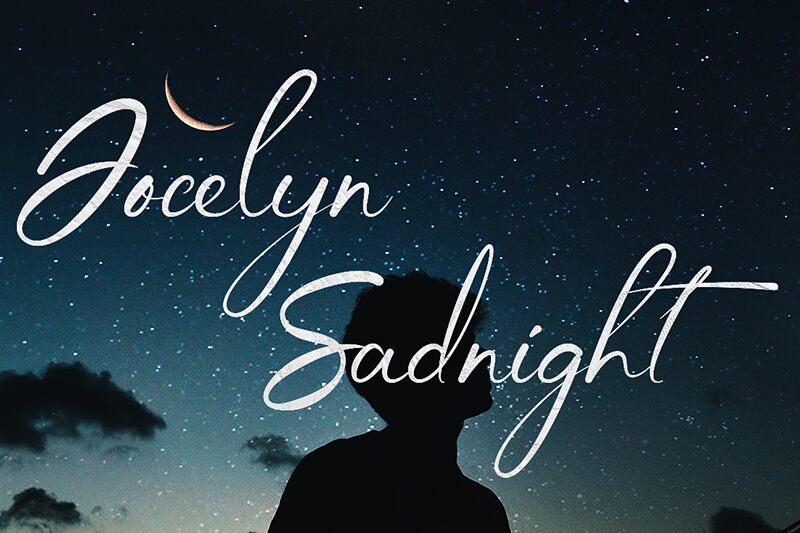
Jocelyn Sadnight font designed by Alvin Hidayat is a free handwritten font with a charming script appeal. It features an elegant and sophisticated design that feels fluid and romantic almost as if it was written by hand using a pen. The artistic flair that characterizes the font emanates modernity and it truly shines with its creative typographical foundation. Each letter is connected and accorded to the others, resulting in a continuous flow. This gives each text typed a personalized touch and a unique appearance every time.
The Jocelyn Sadnight font is perfectly used in various designs especially branding design as monograms with lots of elegant, personal, and luxurious feelings, i.e. photography signature/key logos. Fashion and cosmetics brands (branding, advertising, packaging, etc.) could also benefit from the use of the font as it suits them perfectly. Further, the font could be used in merchandise design (book covers, album covers, printed t-shirts, etc.), in printed or online magazine headers, in posters, and digital ads, or as long or short letters in both personal and formal invitations and greeting cards (anniversaries, birthdays, weddings, engagement proposals, etc.).
Last but not least, the font could showcase its beauty in logo design for beauty salons, spas, etc. This font is free for strictly personal use. Commercial use calls for obtaining the full version with the commercial license from the author.